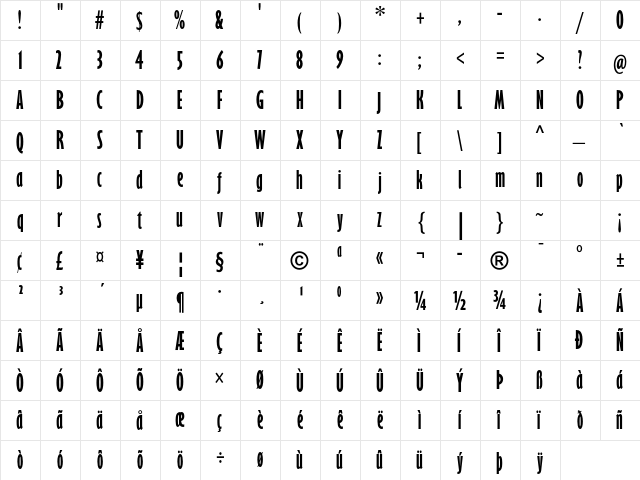
Gill Sans Std Bold Extra Condensed
| Designer | Eric Gill |
Design Context for Gill Sans Std Typeface
Gill Sans Std offers clean, dependable letterforms without strong stylistic allegiance, making it a practical choice for designers who need flexibility. Its bold stroke weight gives it real presence on the page. The condensed width makes it efficient for tight spaces without sacrificing legibility.